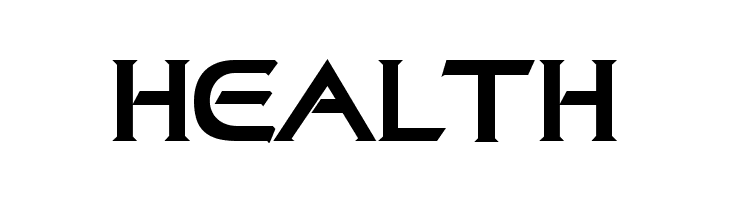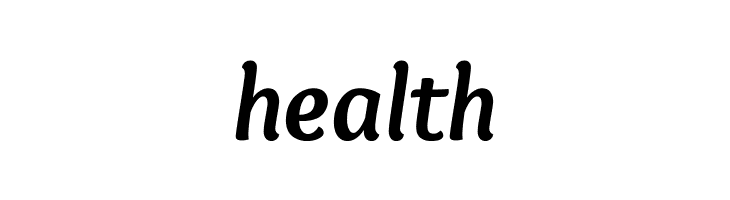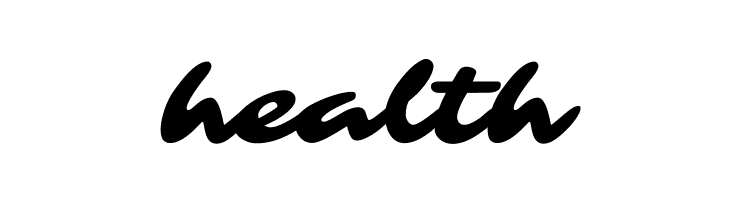
An elegant cursive font with a calligraphic style and smooth, flowing letters.
A bold, geometric font with sharp angles and a modern, futuristic style.
A playful, narrow font with rounded edges, perfect for creative projects.
A flowing, cursive font with elegant loops and a handwritten appearance.
A bold, vintage display font with a dotted texture.
A clean, modern sans-serif font with geometric structure and light weight.
A classic serif font with elegant, Renaissance-inspired design and moderate contrast.
A bold, italic serif font with elegant curves and pronounced serifs.
A bold, distressed font with a grunge aesthetic and tight character spacing.
A bold, handwritten-style font with expressive and fluid characters.
A bold, rugged font with a hand-carved, stone-like appearance.
A bold, cursive script font with a modern, handwritten style.
An elegant script font with flowing curves and sophisticated style.
A modern, geometric font with rounded edges and consistent stroke width.
A playful, hollow font with smooth curves and rounded edges, perfect for creative projects.
A bold, retro-inspired font with rounded, chunky characters.
A playful, bold font with rounded, thick strokes and a friendly appearance.
A bold, rounded, and geometric font with a futuristic style.
A bold, modern geometric font with a clean and angular design.
A playful, interconnected font with rounded edges and consistent line weight.
A playful, bold font with rounded, hand-drawn strokes.
An elegant cursive font with flowing, ornate characters.
A bold, italic font with a halftone pattern, exuding speed and energy.
A bold, playful handwritten font with rounded, energetic characters.
A bold, modern font with rounded edges and a geometric structure.
A festive, flowing script font perfect for holiday-themed designs.
A bold, brush-style font with dynamic, handwritten strokes.
A playful, hand-drawn font with tall, narrow letters and a uniform stroke width.
A playful, handwritten font with tall, narrow letters and a casual style.
A bold, distressed font with a grunge texture, ideal for edgy designs.
An artistic outline font with a playful, three-dimensional style.
A whimsical, curly font with decorative swirls and loops, perfect for creative projects.
A bold serif font with high contrast and dramatic strokes, perfect for impactful headlines.
A playful, casual handwritten font with smooth curves and expressive letterforms.
A bold, slightly condensed font with a playful yet assertive style.